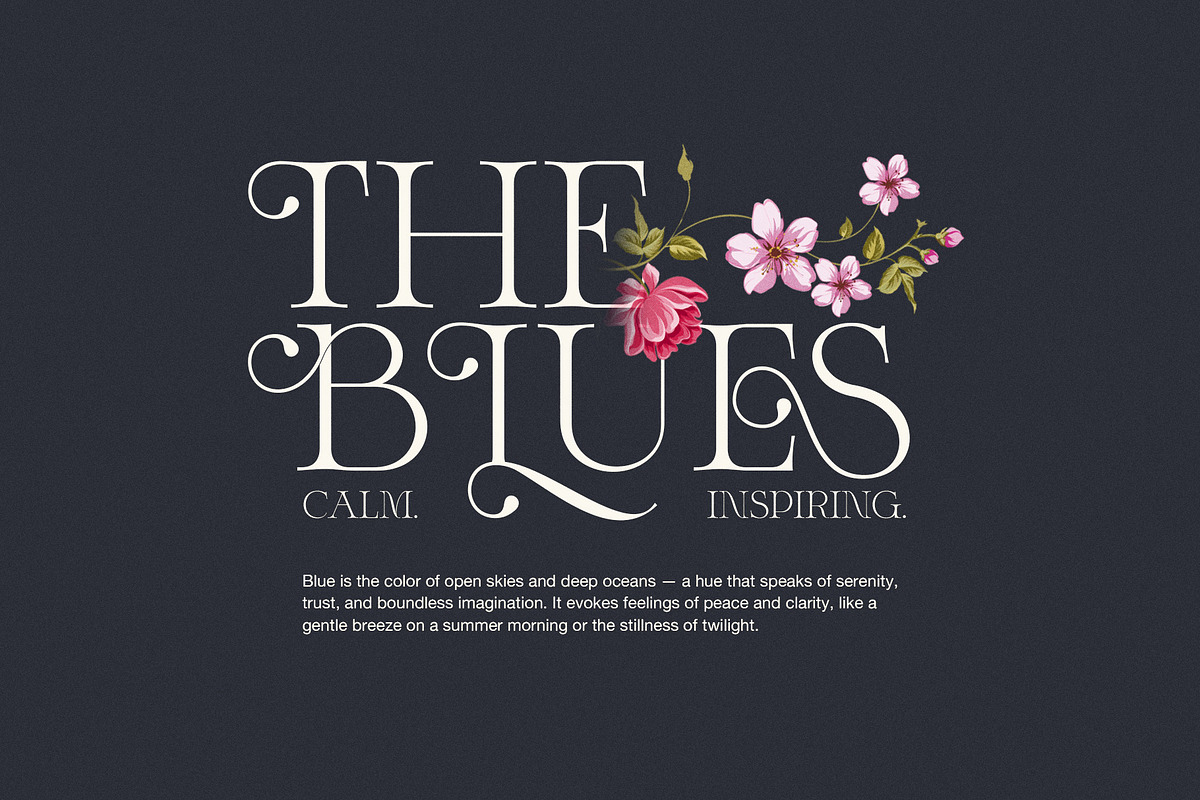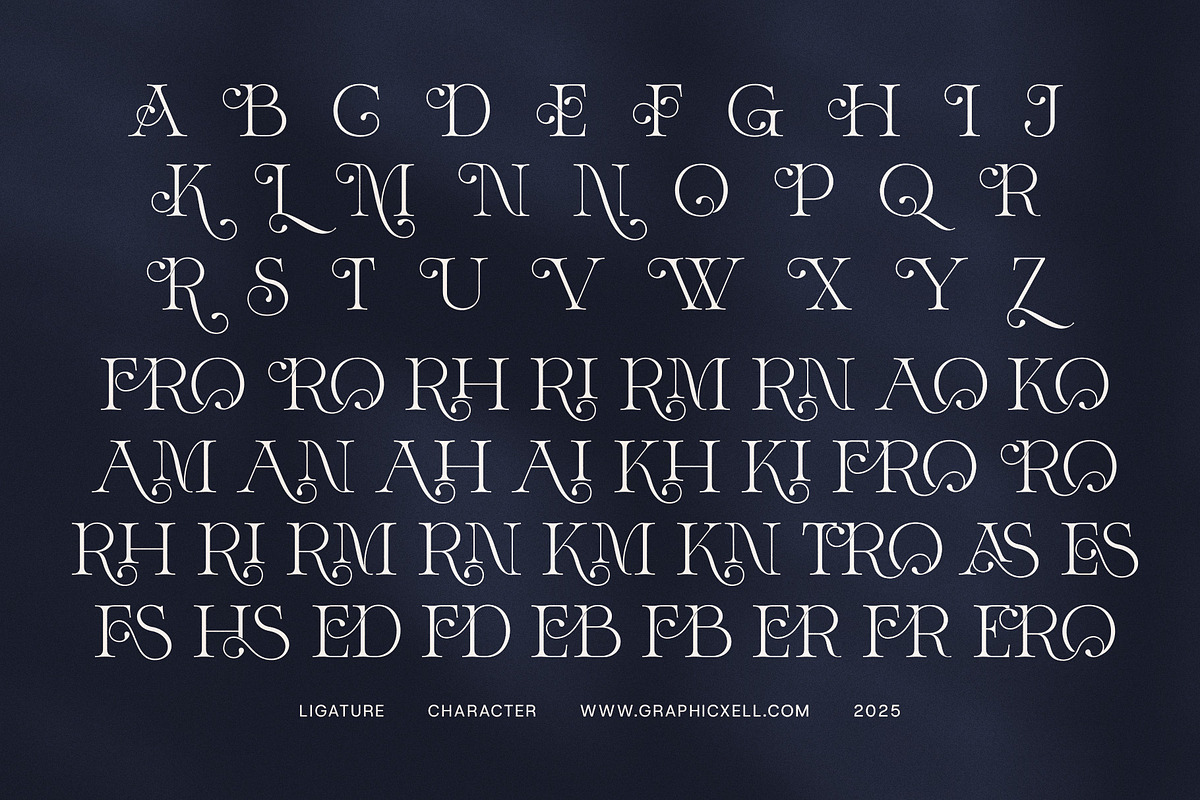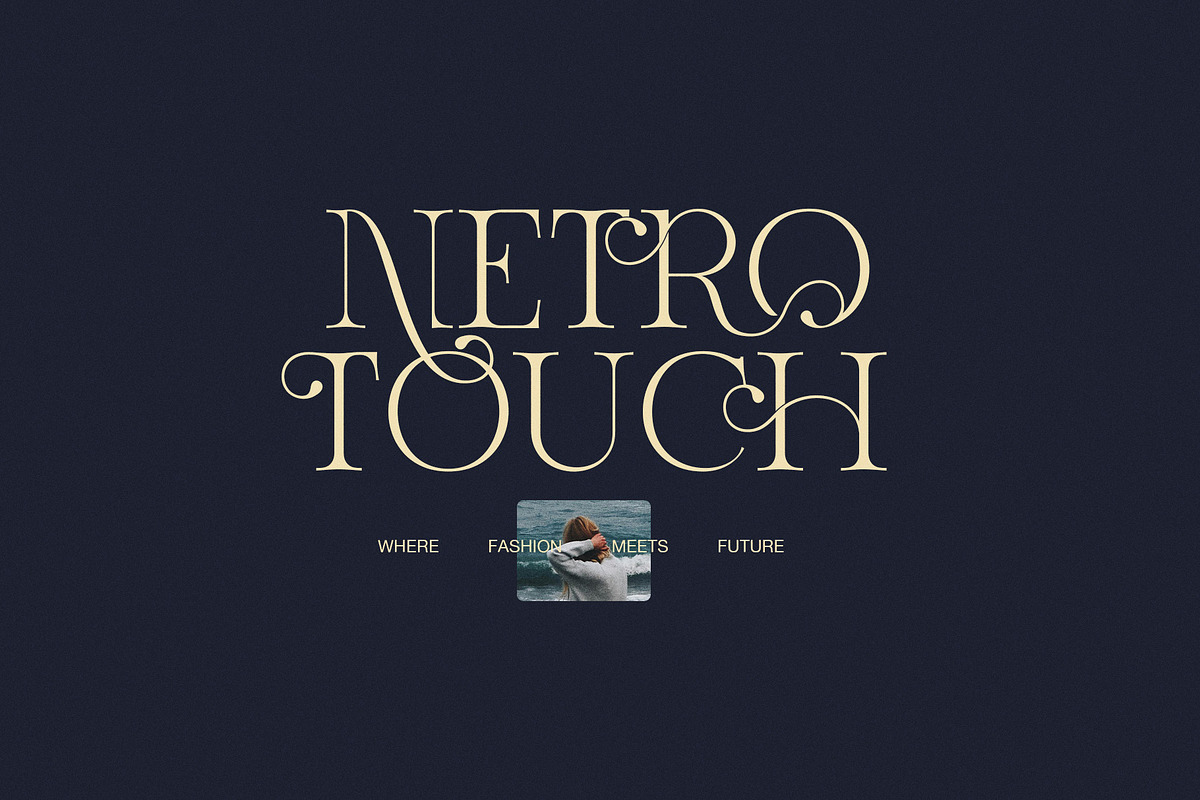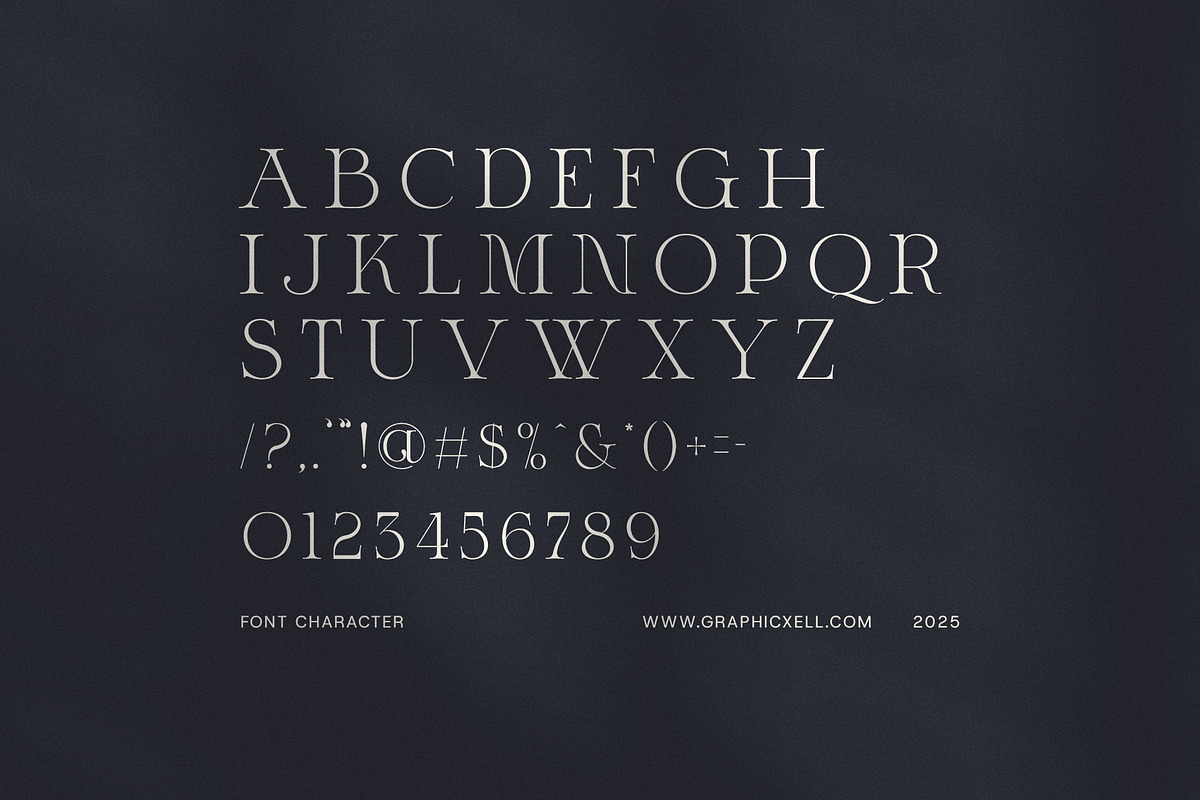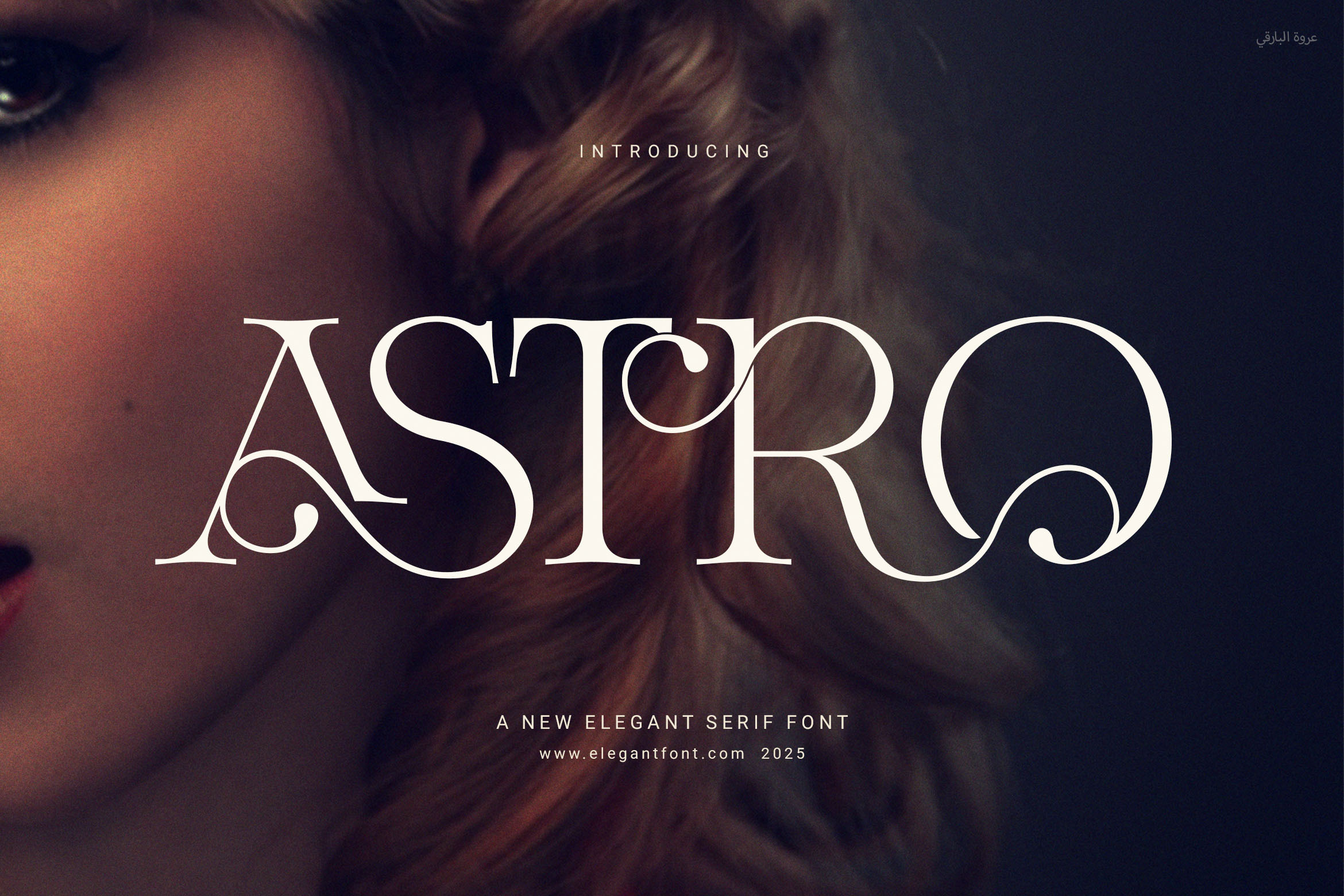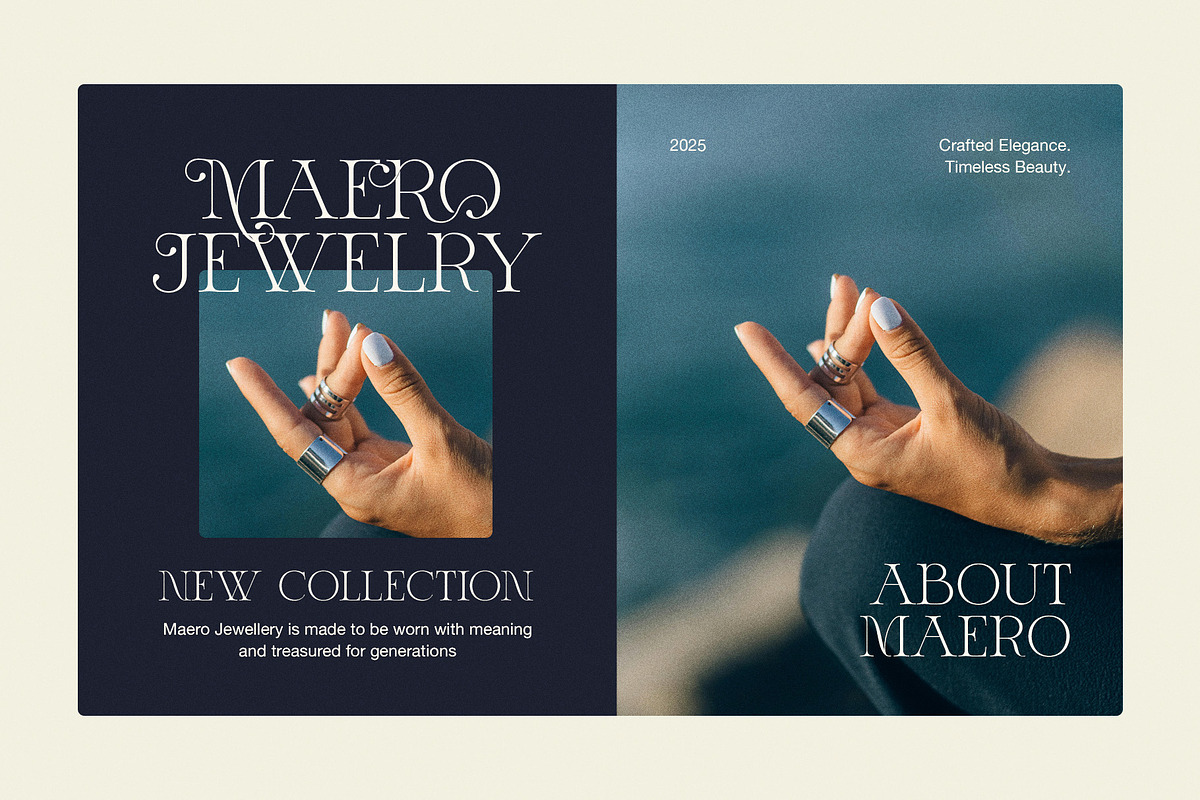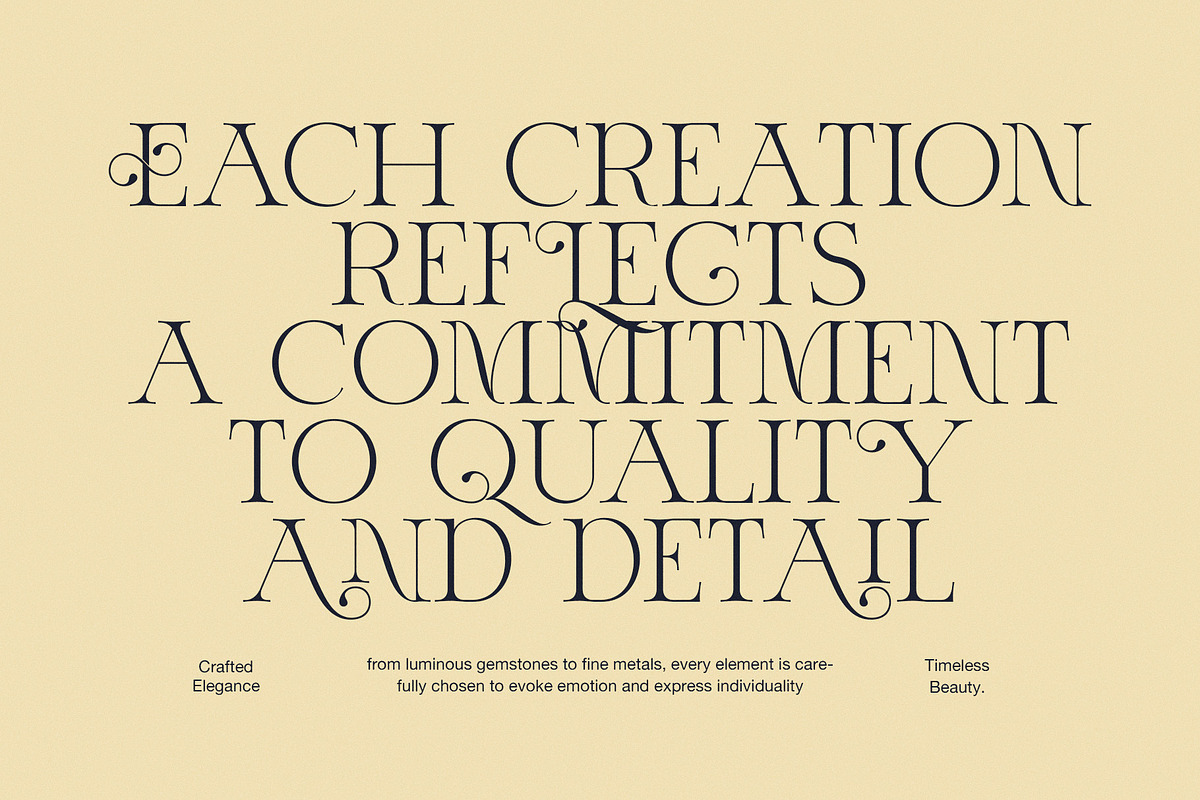
Astro Modern Serif Font
Astro Elegant Serif Font – Timeless Style Made Simple
Astro is a modern serif font that brings together clean lines and classic elegance. It’s designed to look refined yet easy to read, giving your work a polished and professional feel. Whether you're working on branding, web design, or print layouts, Astro helps your project stand out in a simple, stylish way.
Thanks to its smooth curves and sharp edges, Astro adds personality without going over the top. It keeps things clear and readable while still offering a unique touch. As a result, it fits perfectly into a wide range of creative uses.
What Makes Astro Special:
Elegant serif letterforms with modern shapes
Stylistic alternates and ligatures for variety
Balanced strokes for smooth readability
Clean design that works well at any size
Includes uppercase, lowercase, numbers, and punctuation
Astro is great for more than just logos. You can use it for wedding invites, social media posts, product packaging, magazine titles, and much more. It adapts easily to your style, whether you're aiming for bold and modern or soft and classic. With built-in alternates, you can also create custom looks in just a few clicks.
In short, Astro is both beautiful and easy to use. It brings elegance to your designs without making things feel complicated. If you want a font that’s stylish, flexible, and perfect for everyday design needs, Astro is a smart choice.